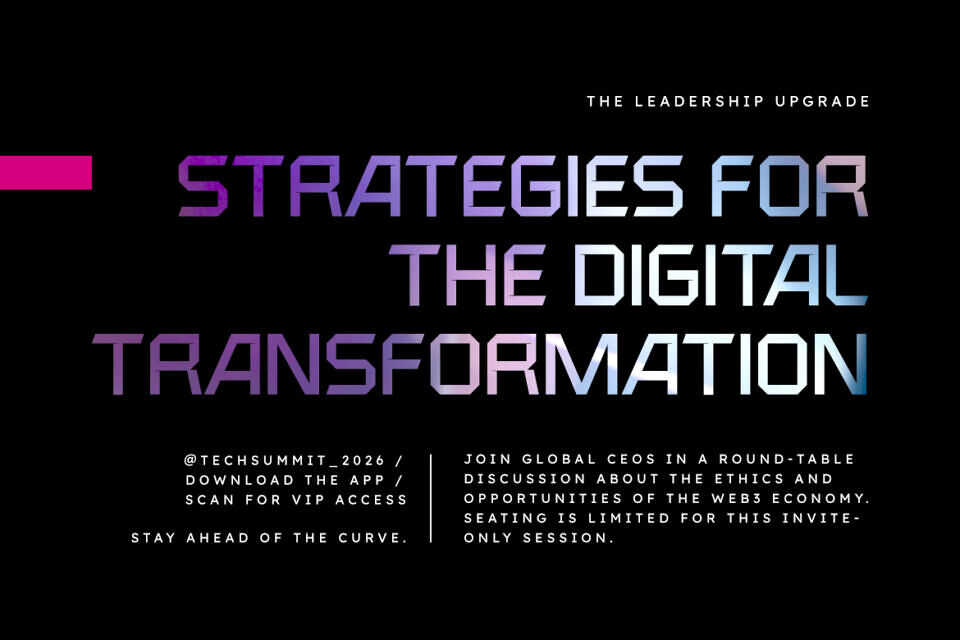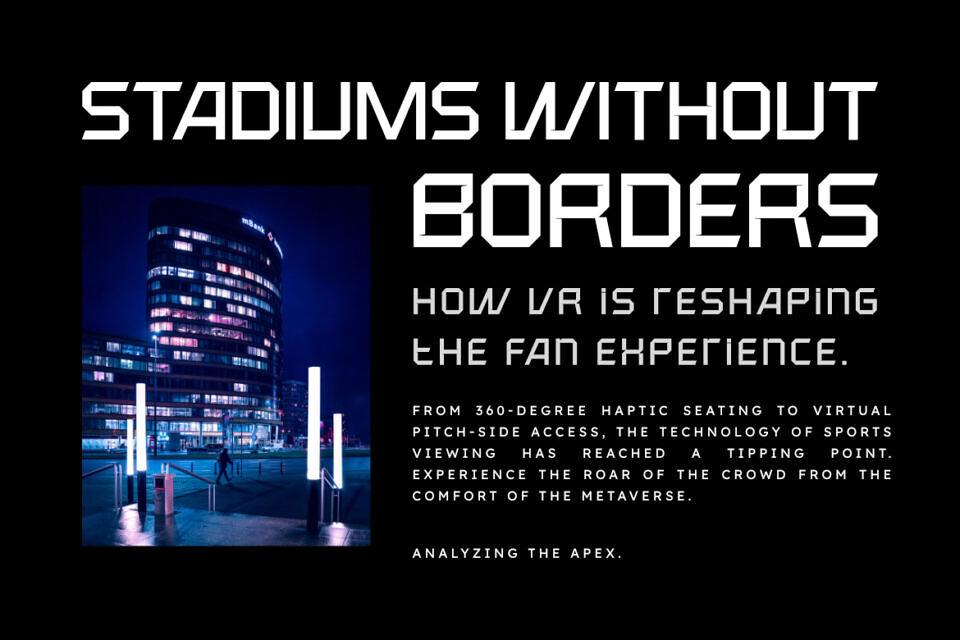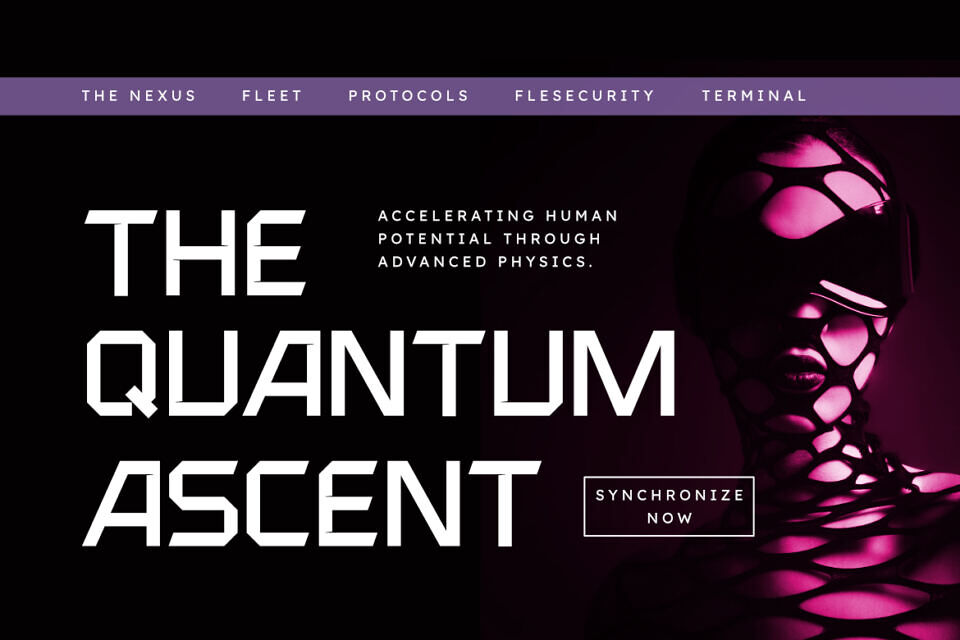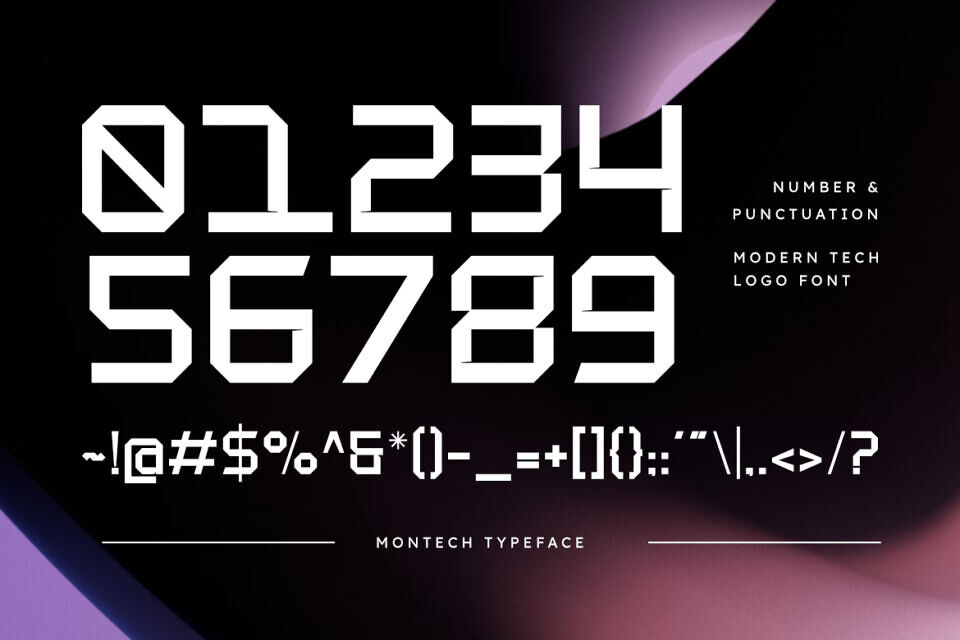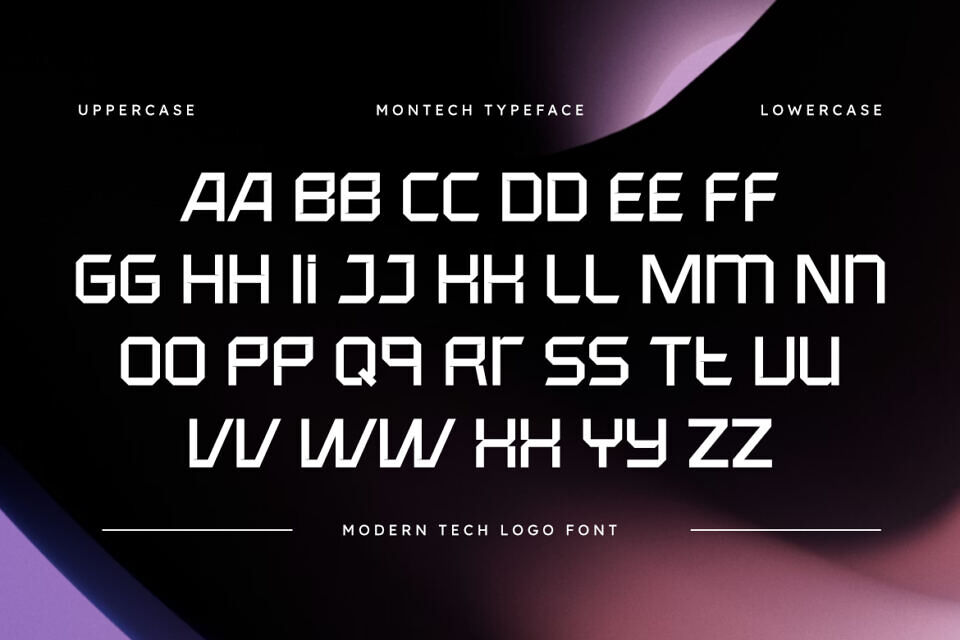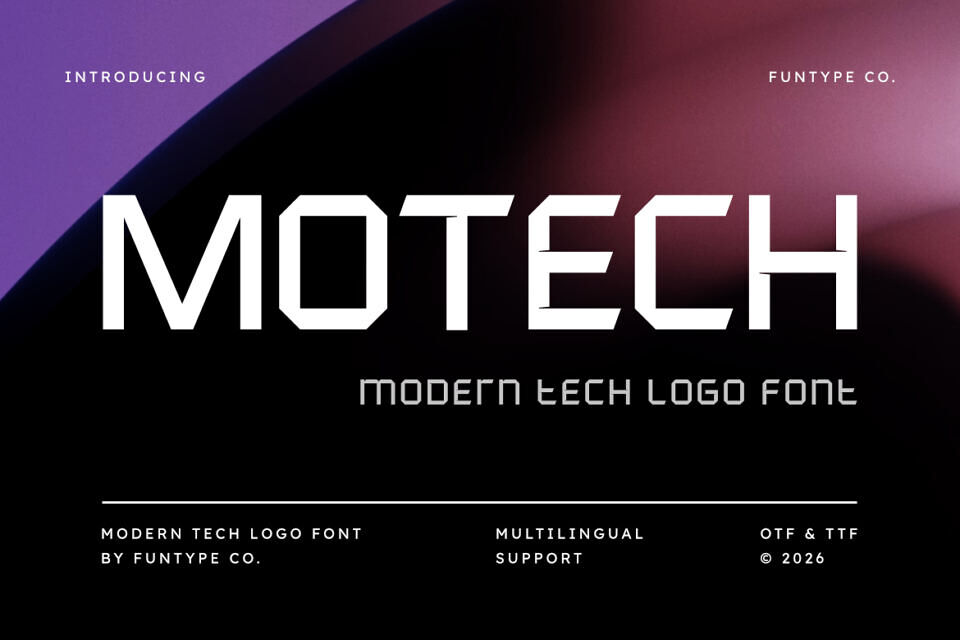
Motech Font
Motech is a sophisticated and powerful modern tech logo font, thoughtfully designed to capture the essence of futuristic innovation and digital storytelling. With its sharp geometric angles and clean industrial lines, Motech offers a professional aesthetic that brings a touch of advanced technology to any creative project.
Whether you are crafting a cutting-edge startup logo, a sleek cybersecurity brand identity, or bold gaming graphics, Motech provides a seamless blend of contemporary flair and digital authority.